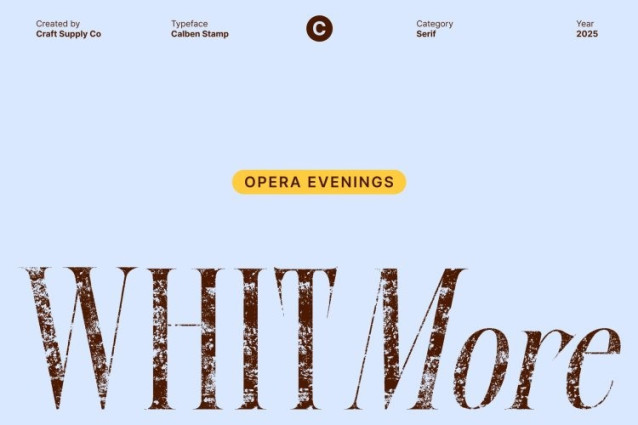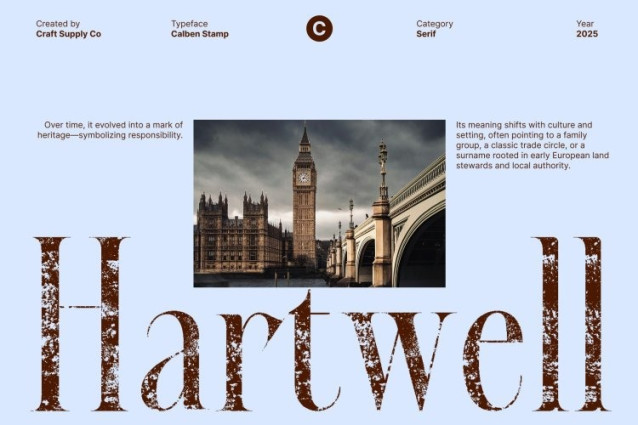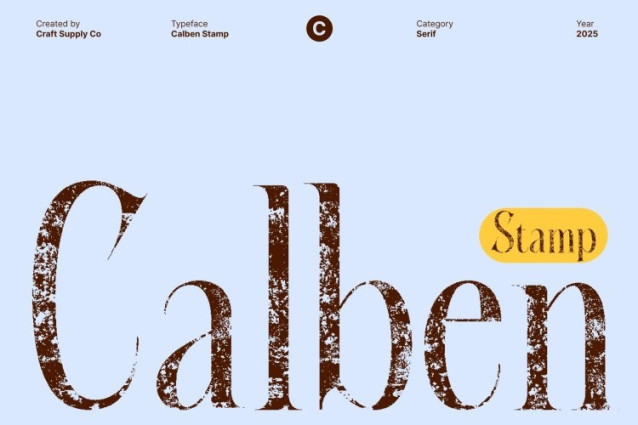
Calben Stamp Font
Calben Stamp Font This captures the ornate beauty and refined artistry of classical Renaissance lettering. With its flourished serifs, condensed proportions, and historically rooted curves, this font evokes the elegance of ancient manuscripts and traditional calligraphic craftsmanship. It delivers a sense of heritage, depth, and sophistication that instantly elevates any design.
Flourished Serifs and Classical Forms for Timeless Appeal
Every character in this font carries delicate ornamentation and classical structure, giving it a distinguished, ceremonial presence. The condensed form enhances its vertical grace, allowing long titles or dramatic headlines to appear refined and stately. These stylistic details draw inspiration from historical typography, making the font ideal for cultural, academic, or artistic themes.
Stamp Texture Adds Vintage Charm and Artistic Character
The added stamp texture enriches the typeface with a handcrafted, tactile quality. This subtle roughness brings warmth, authenticity, and a nostalgic feel perfect for designers who want a blend of classical form with expressive, weathered texture.
Perfect for Book Covers, Posters, Cultural Branding, and Heritage Design
This font shines in editorial layouts, museum branding, period-themed posters, book jackets, and any project requiring a touch of tradition and artistic depth. Its combination of Renaissance elegance and textured visual character makes it a powerful choice for designers seeking a font that conveys culture, sophistication, and vintage beauty.